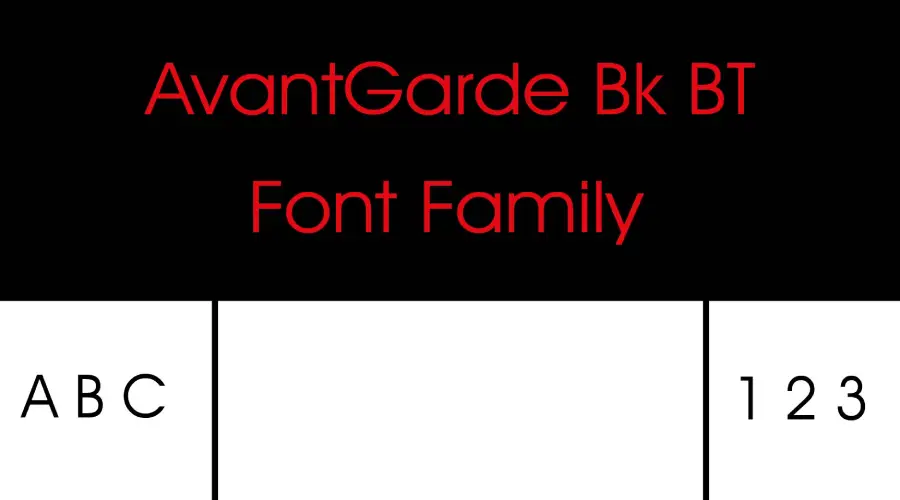
Short answer: this page currently contains three AvantGarde Bk BT binaries—Book, Demi, and Demi Oblique—not four styles. Their names and Bitstream copyright come from the exact files. The history of ITC Avant Garde Gothic is useful context, but it is not a license or provenance record for these Bk BT files.
The Monotype/MyFonts field guide records that ITC Avant Garde Gothic began with Herb Lubalin’s magazine logo and that Tom Carnase drew the alphabet from Lubalin’s sketches. It also describes a much broader modern ITC family. The three files here instead self-identify as AvantGarde Bk BT and carry 1990–1998 Bitstream copyright. Similar naming and shapes do not prove that the exact binaries have the same release history or license.